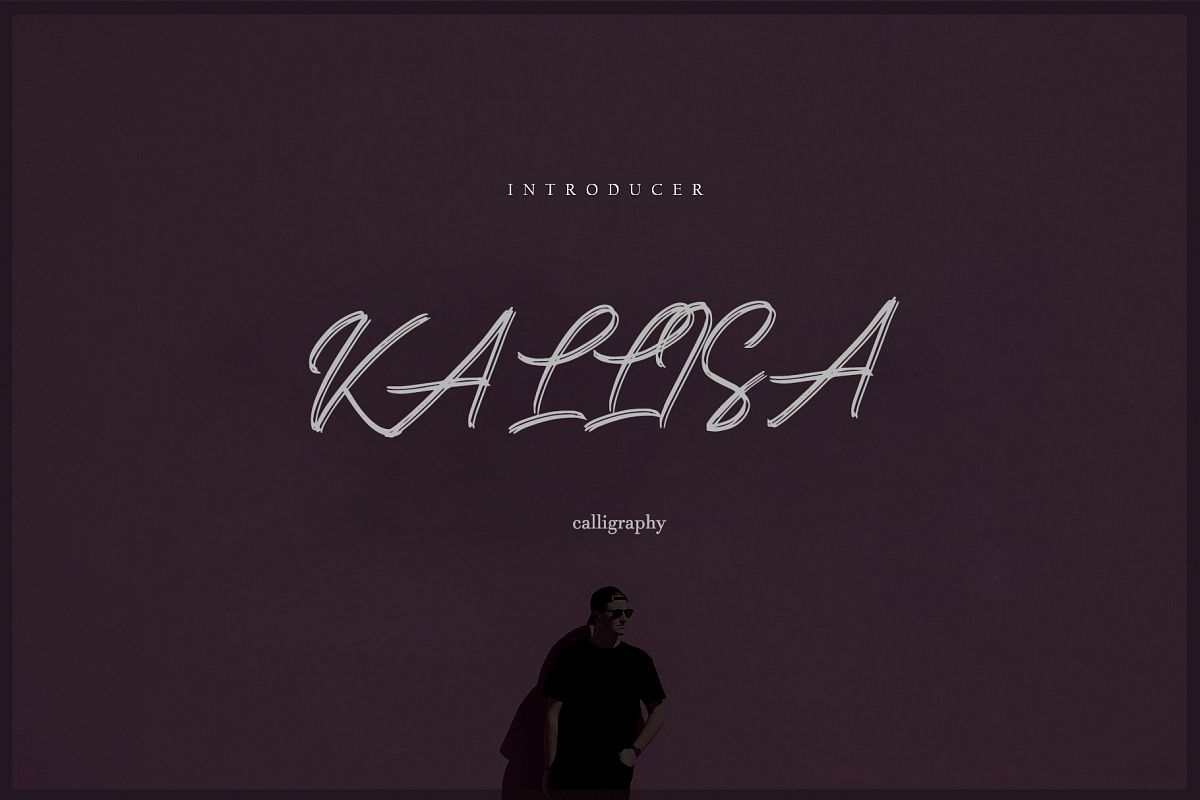
Kallisa classic calligraphy with an modern style
Hello Font Lovers! Introducing kallisa Font. kallisa Font Trio is another lovely modern Script font, which is combining the style of classic calligraphy with an modern style. combines from copperplate to contemporary typeface with a dancing baseline, modern and elegant touch. including alternates, and ligatures.